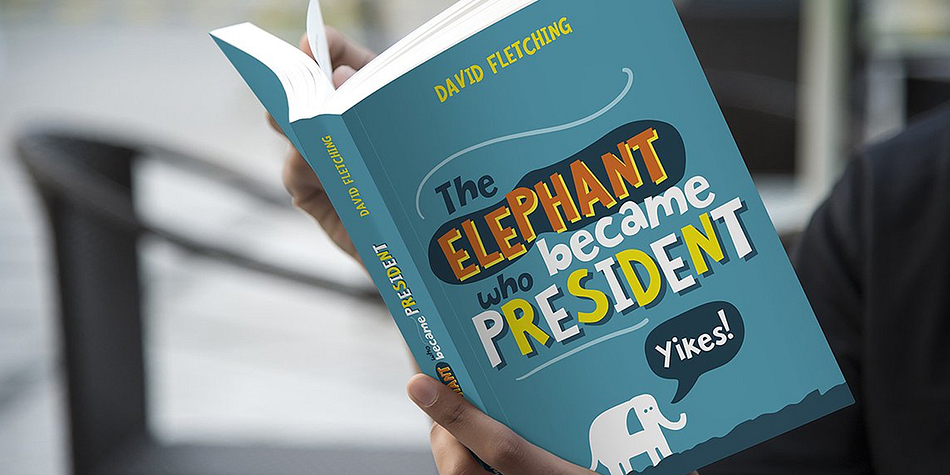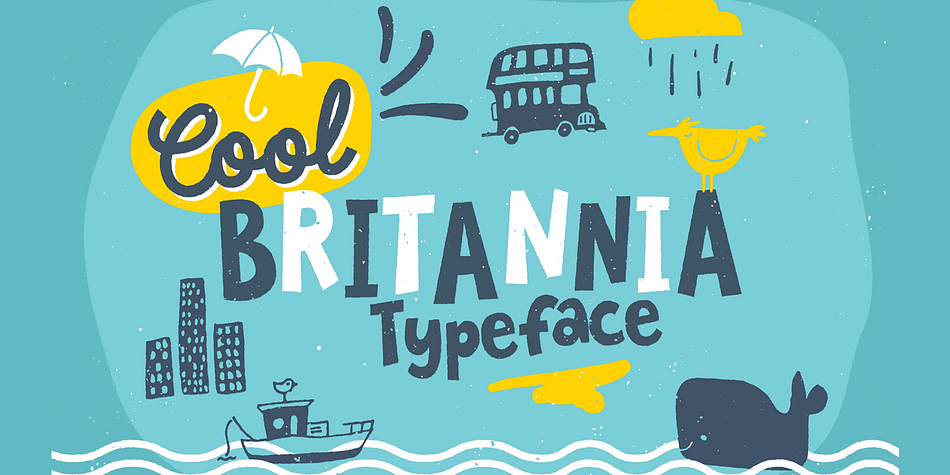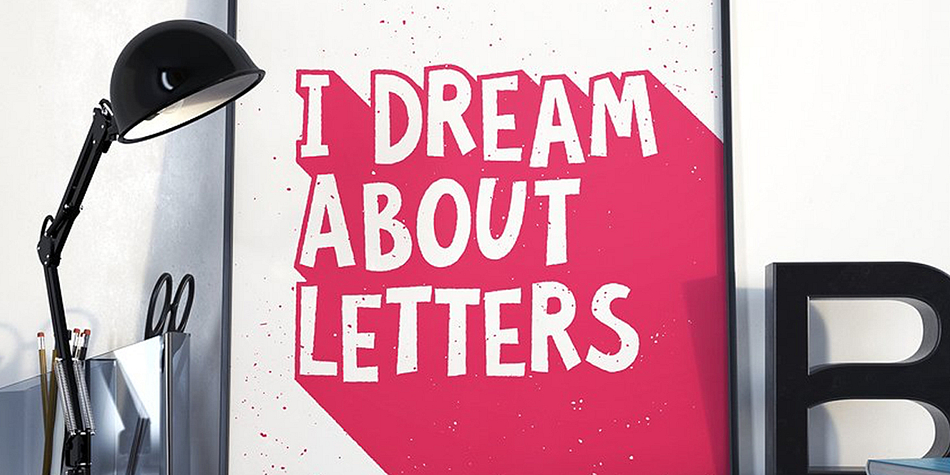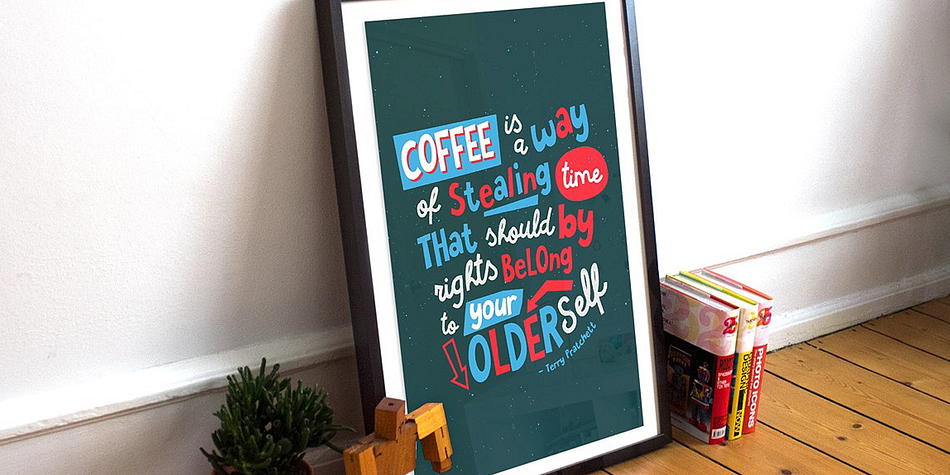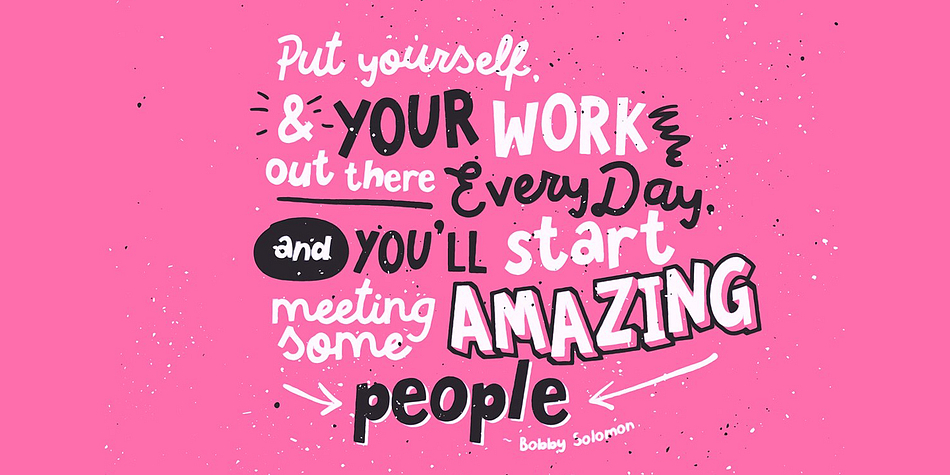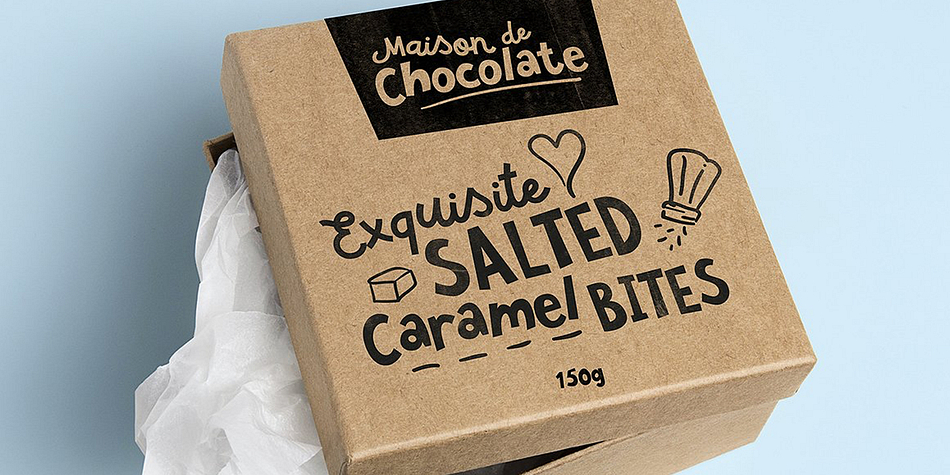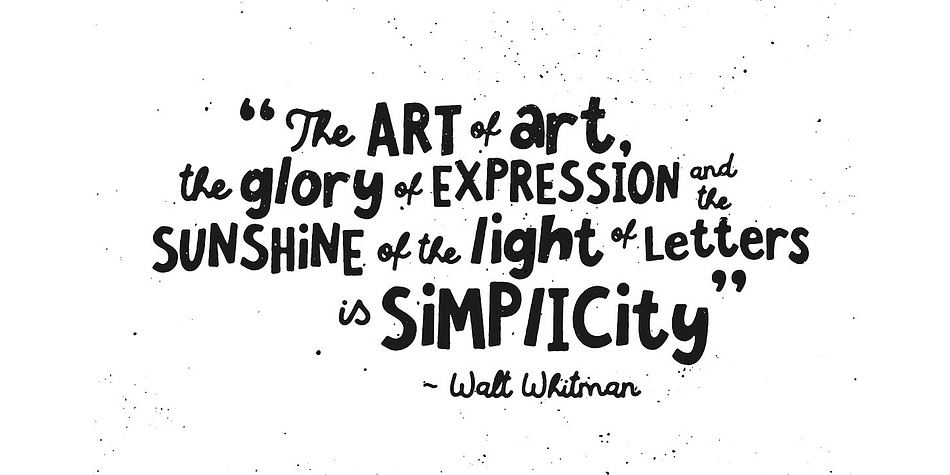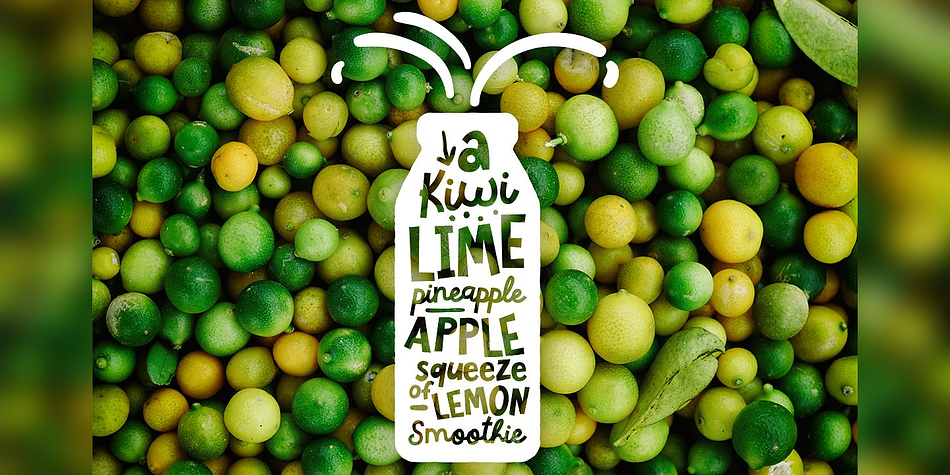
Designed by Ian Barnard, Cool Britannia is a brush script, hand display and kids font family. This typeface has two styles and was published by Ian Barnard.
Produced to give that hand made look, which adds more personality to your work. In the download you get 2 fonts. A solid script face and a sans which look great in either all caps or lowercase. Combining all these styles can generate many different typographic layouts for packing, book covers or just quotes to post to your social media.